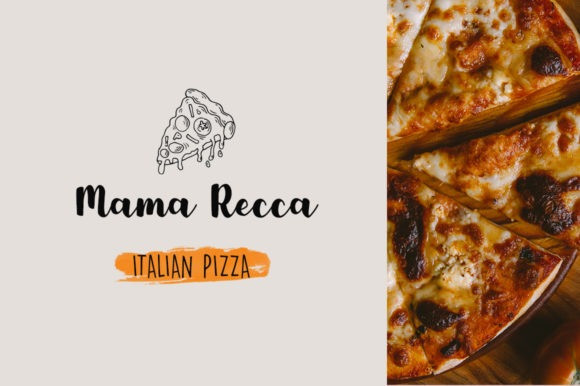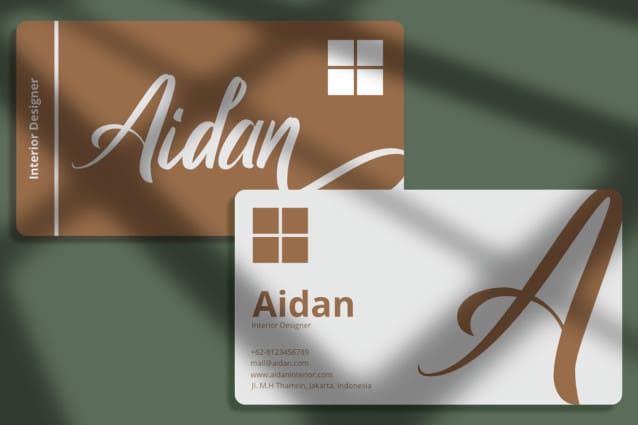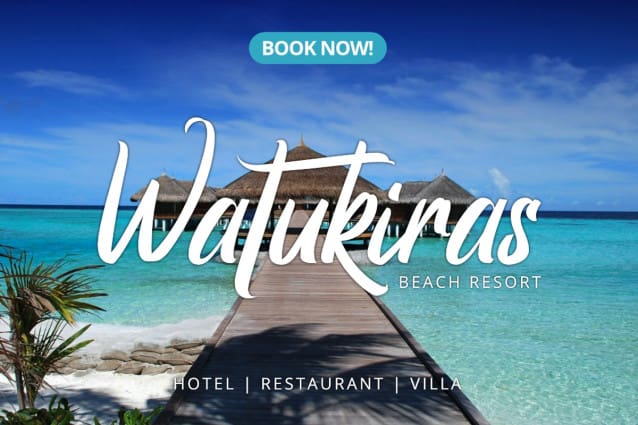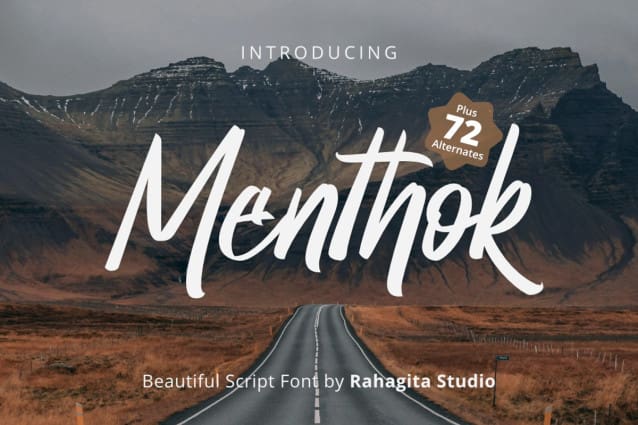
Menthok Script Font
Menthok Script Font is a captivating script that effortlessly blends the delicate beauty of love with the exhilarating spirit of adventure. With its graceful curves and enchanting swirls, Menthok Script Font  exudes a sense of romance and wanderlust, igniting a feeling of excitement and passion in every design. What sets Menthok apart is its versatility, boasting over 72 swash characters and alternates that elevate any project to new heights of creativity. Whether you’re crafting a flyer, banner, social media post, or packaging design. Let Menthok be your guide as you embark on a creative adventure, where every letter is imbued with the spirit of love and exploration.